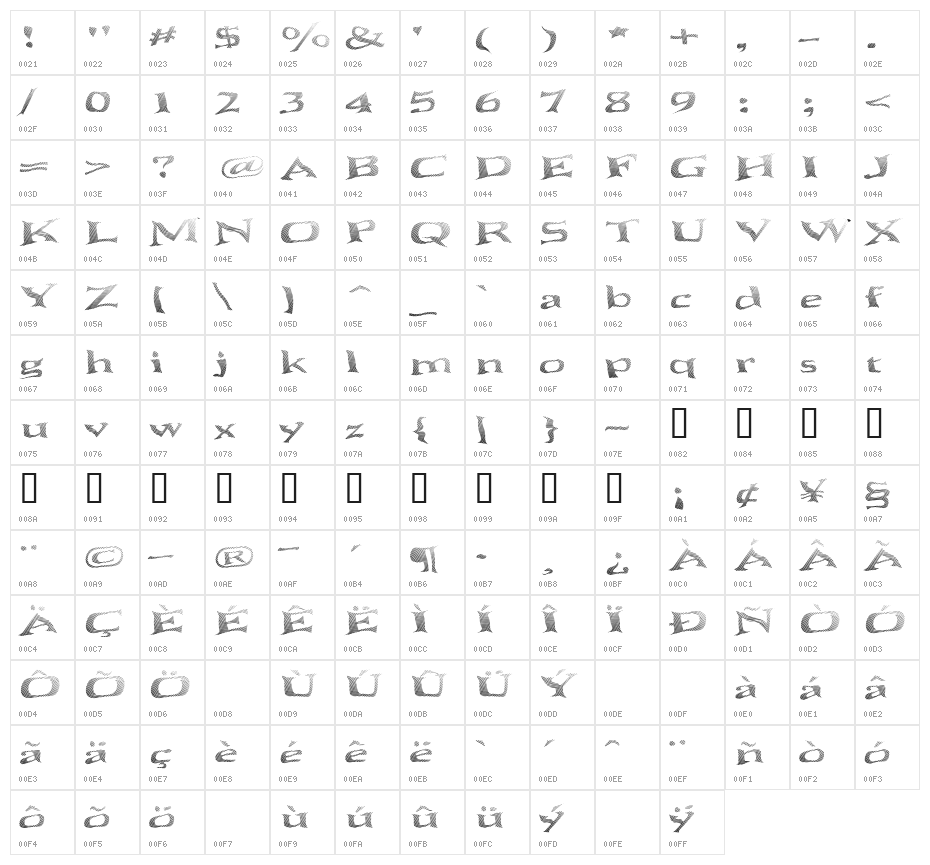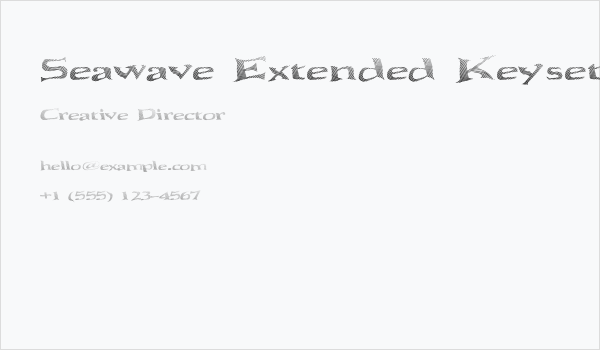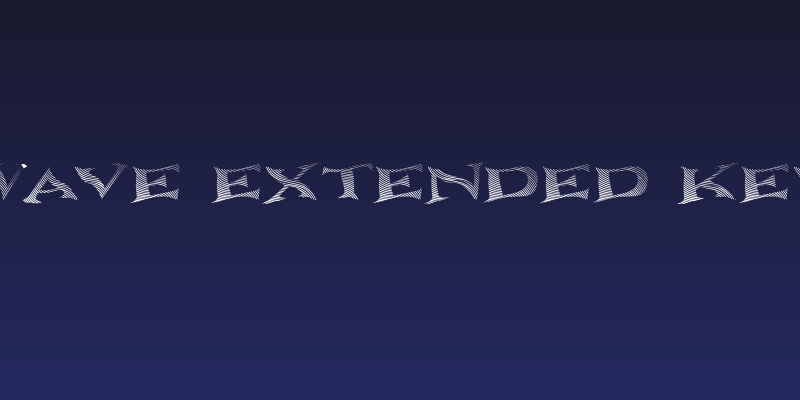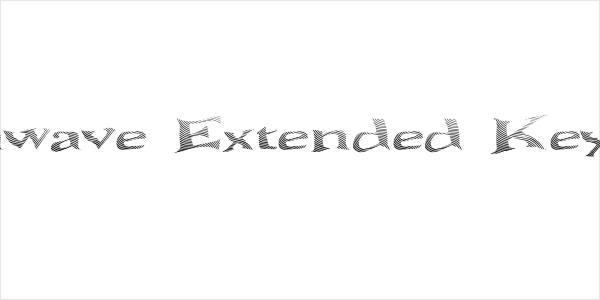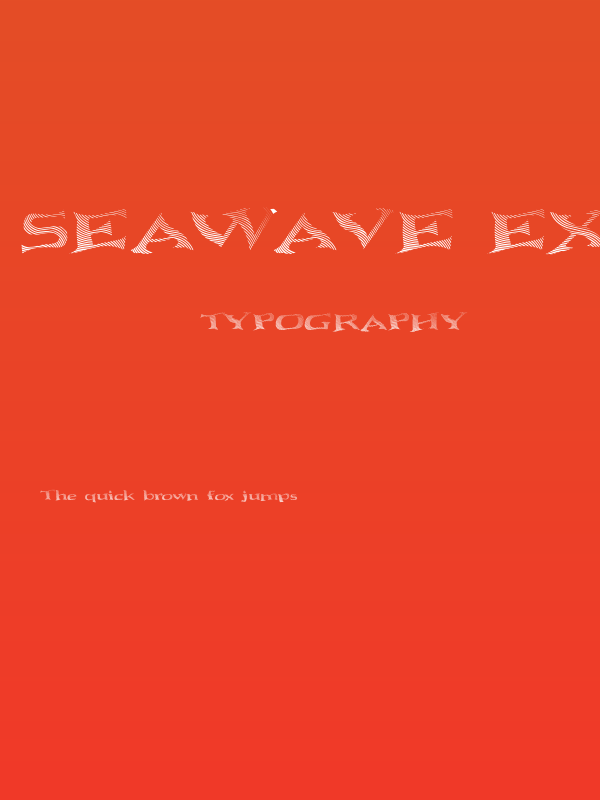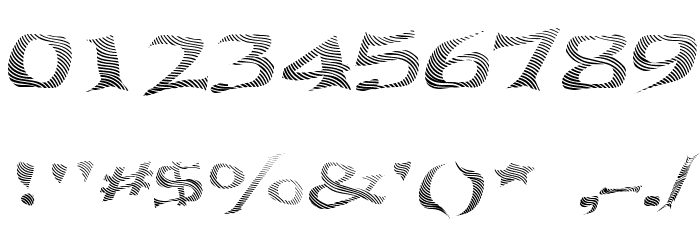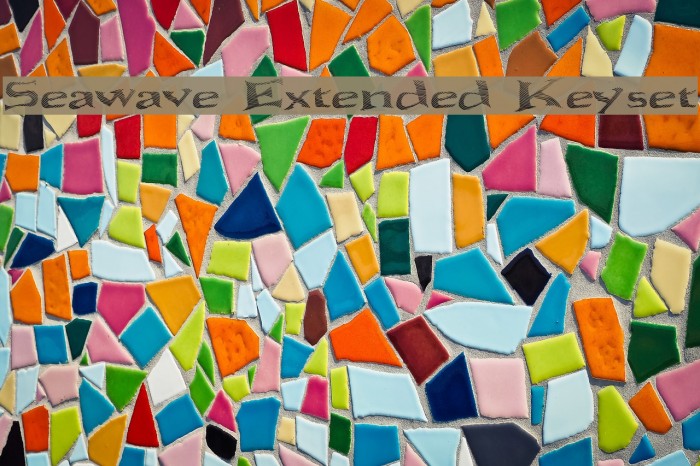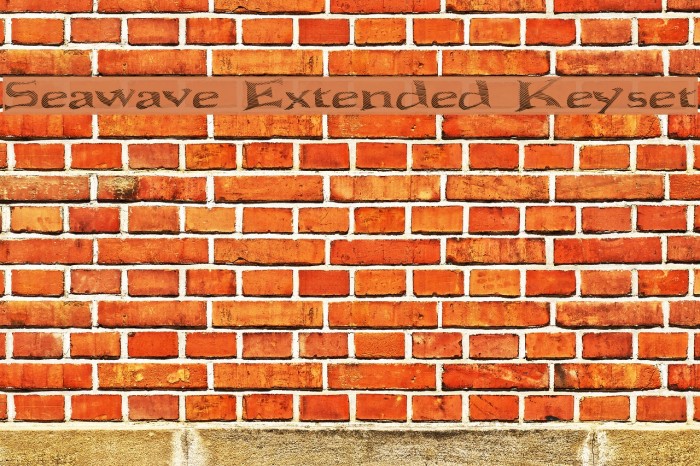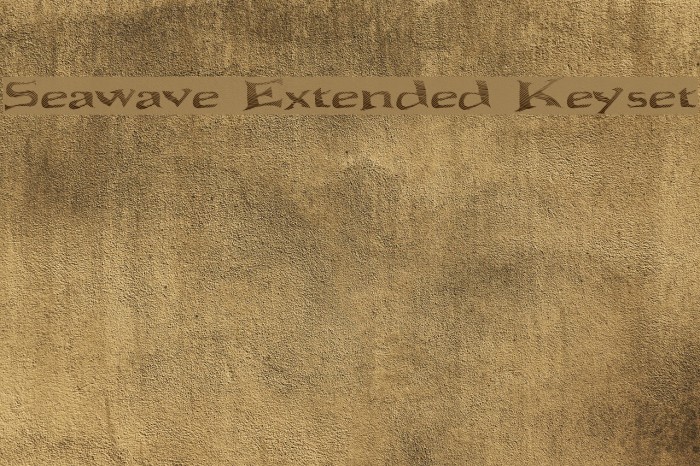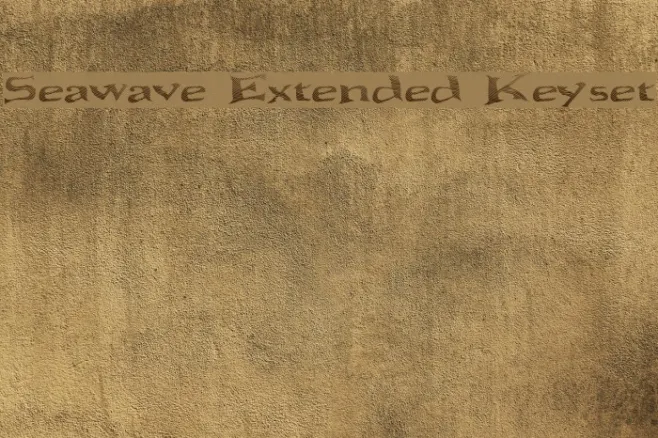
Seawave Extended Keyset Font
Seawave Extended Keyset Description
This font features a dynamic and wavy design, creating a sense of movement and fluidity. Each character is composed of a series of parallel lines that form the letter shapes, giving it a unique textured appearance. The uppercase and lowercase letters maintain a consistent style, with the lines curving and bending to form each character. The numbers and special characters follow the same design principles, ensuring uniformity across the entire set. This font's distinctive style makes it stand out, offering a visually engaging experience.
| Proposed Projects | Ideal for creative projects such as posters, album covers, and branding materials that require a bold and artistic touch. |